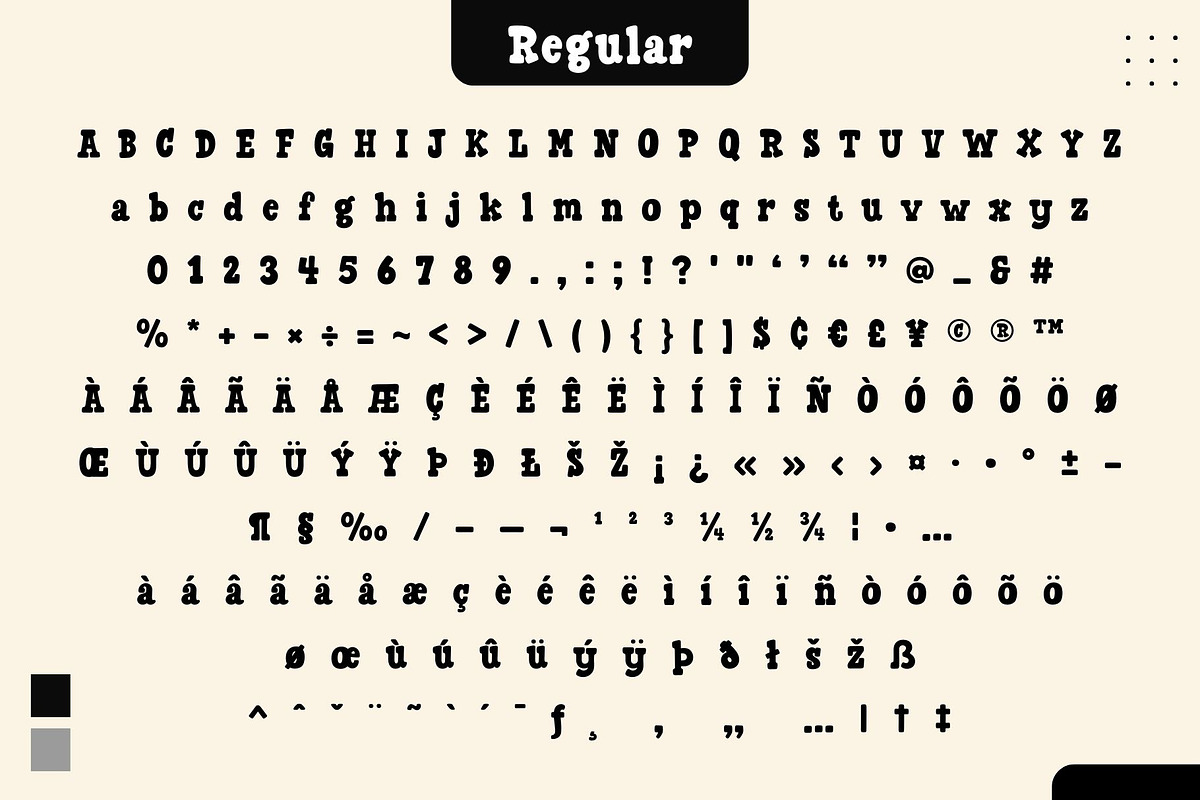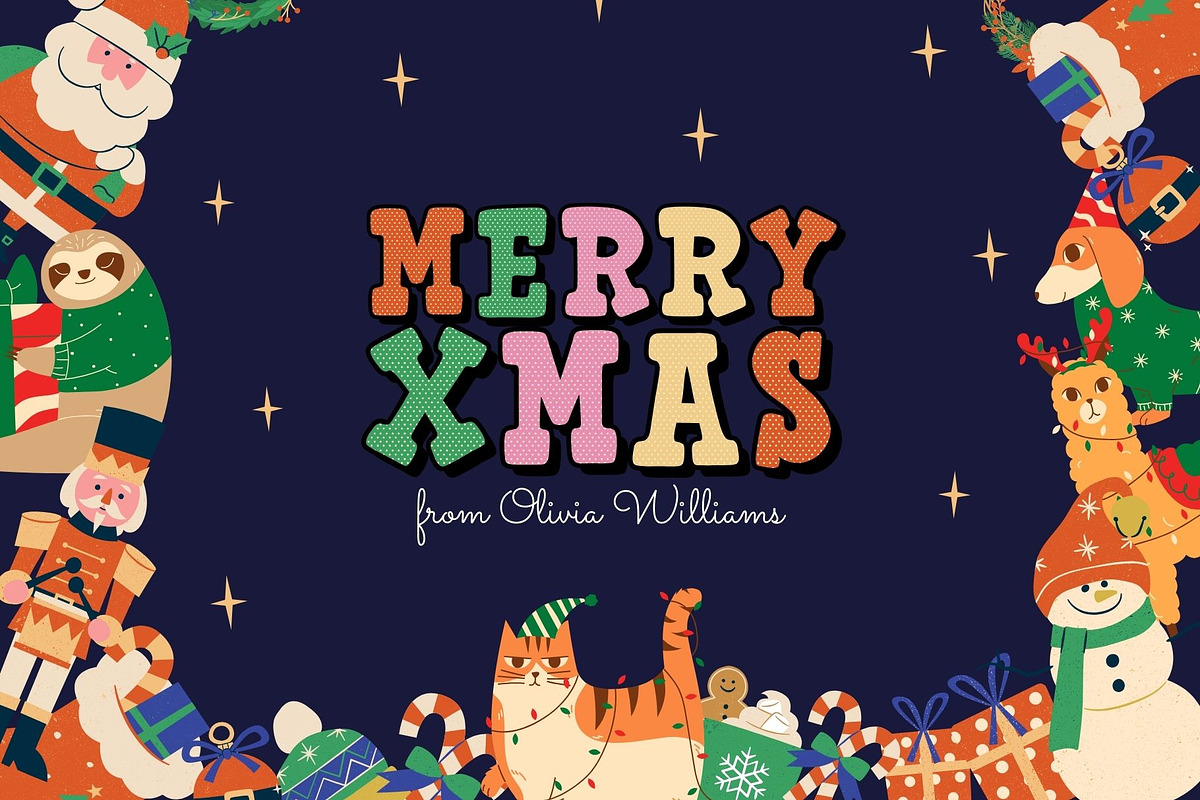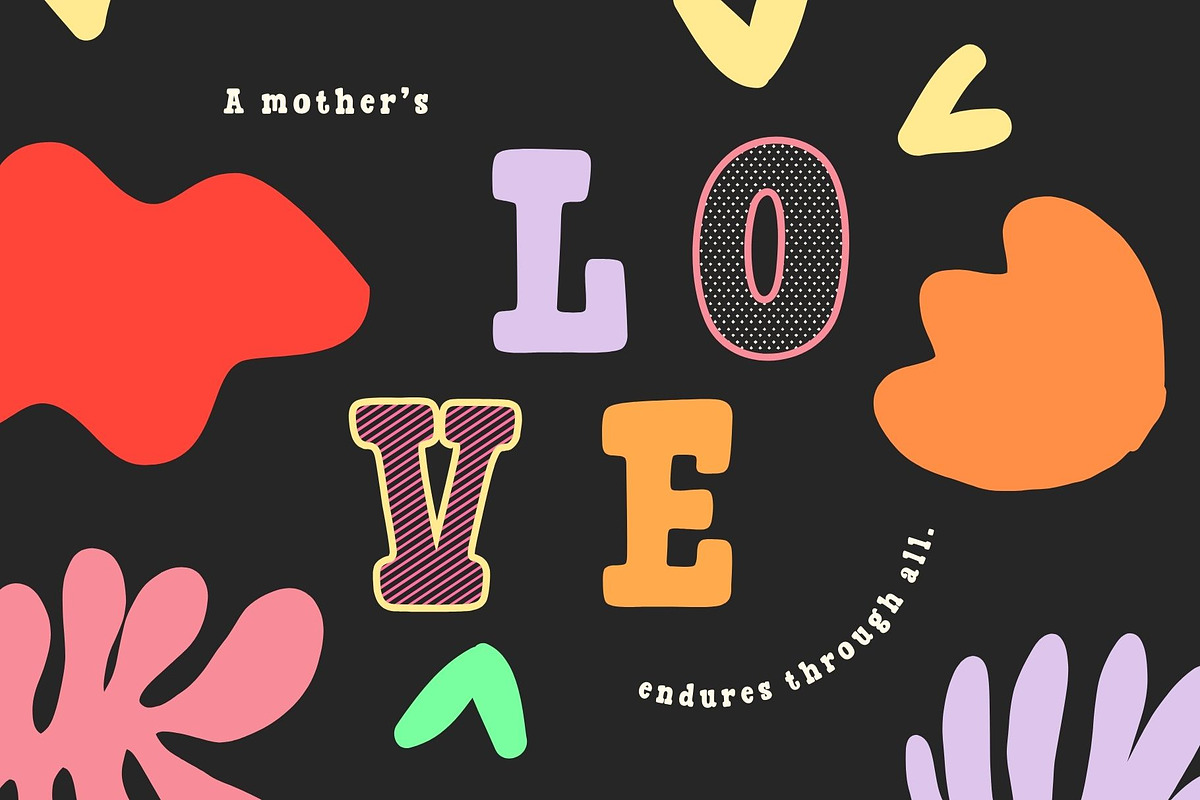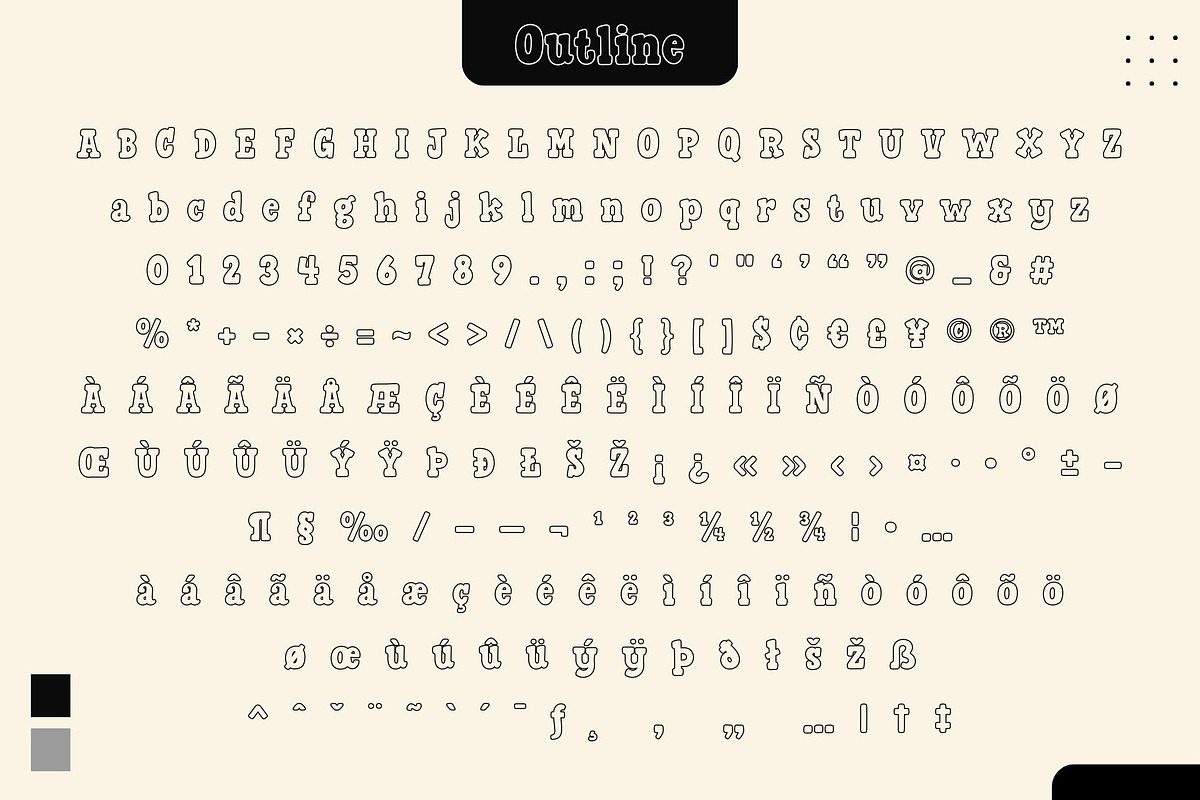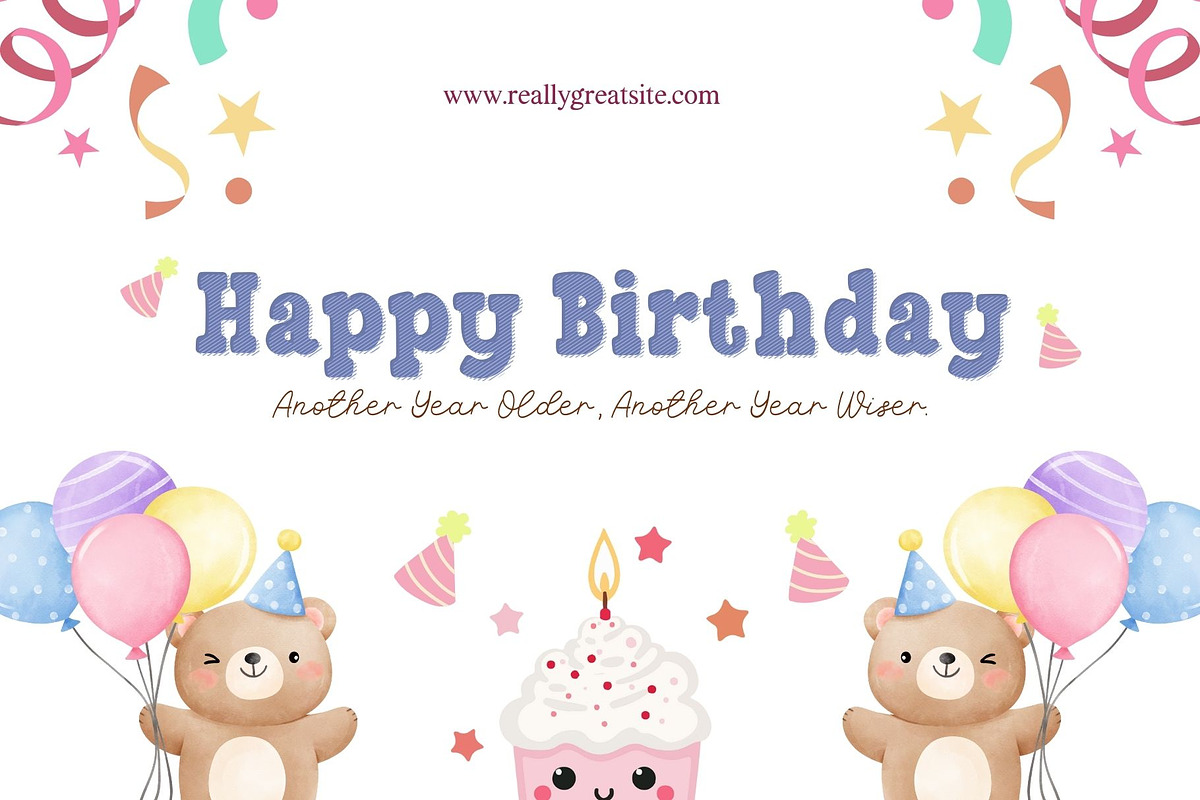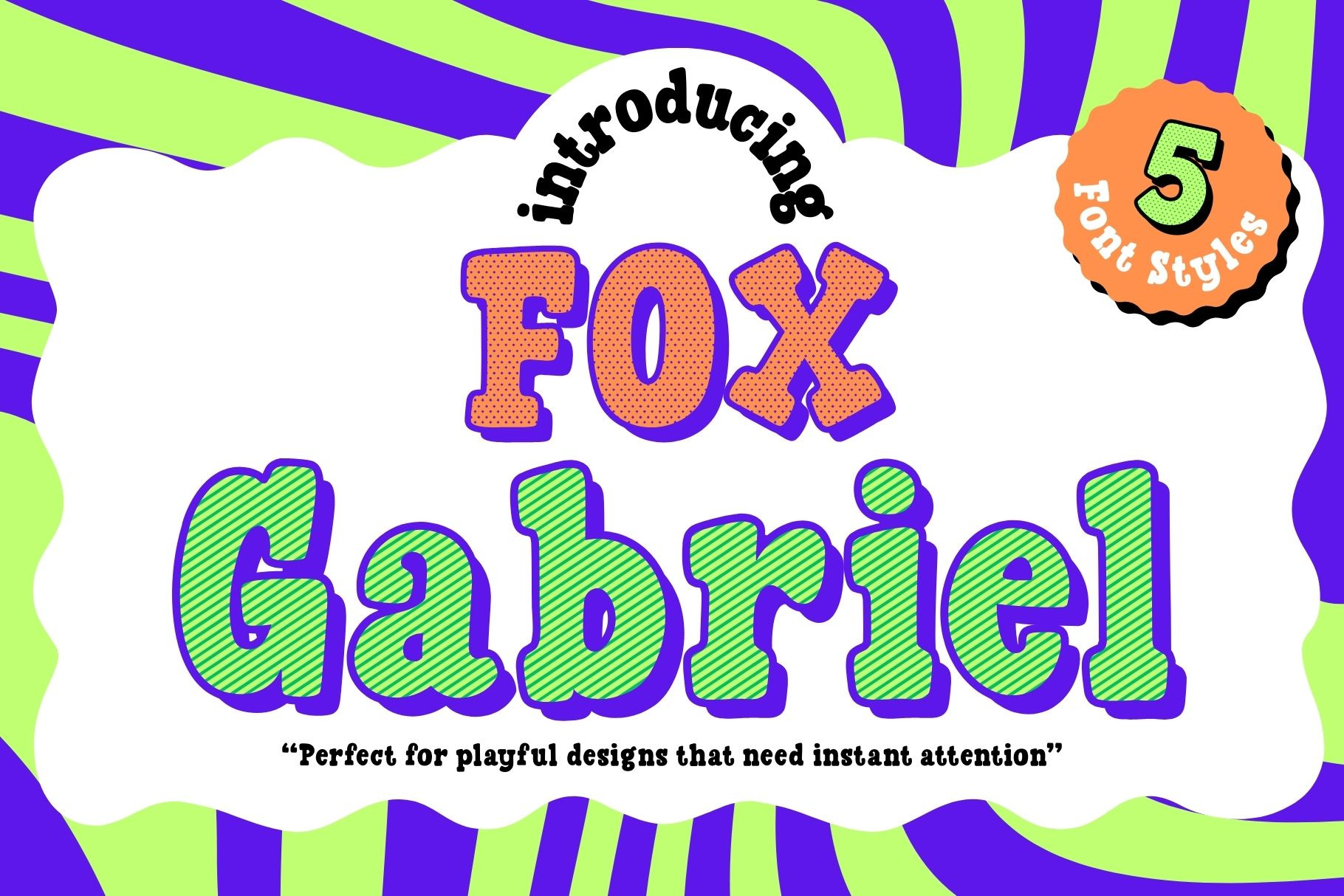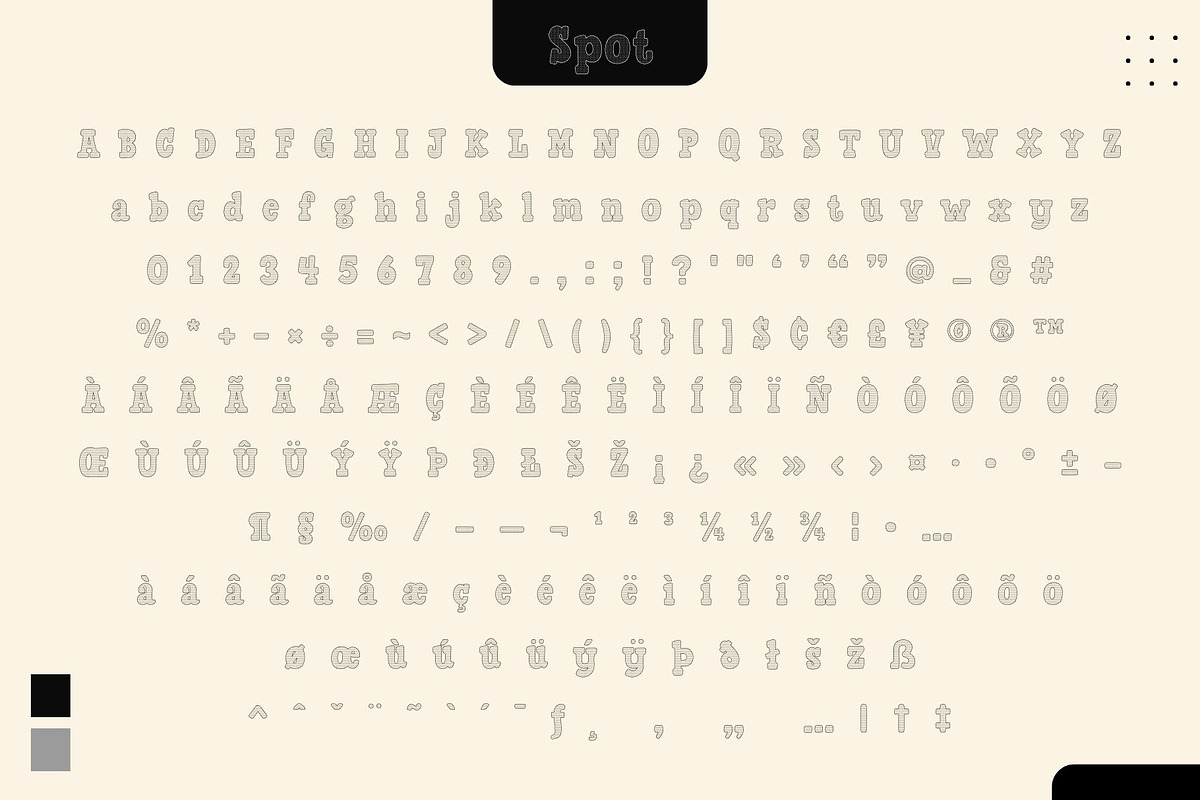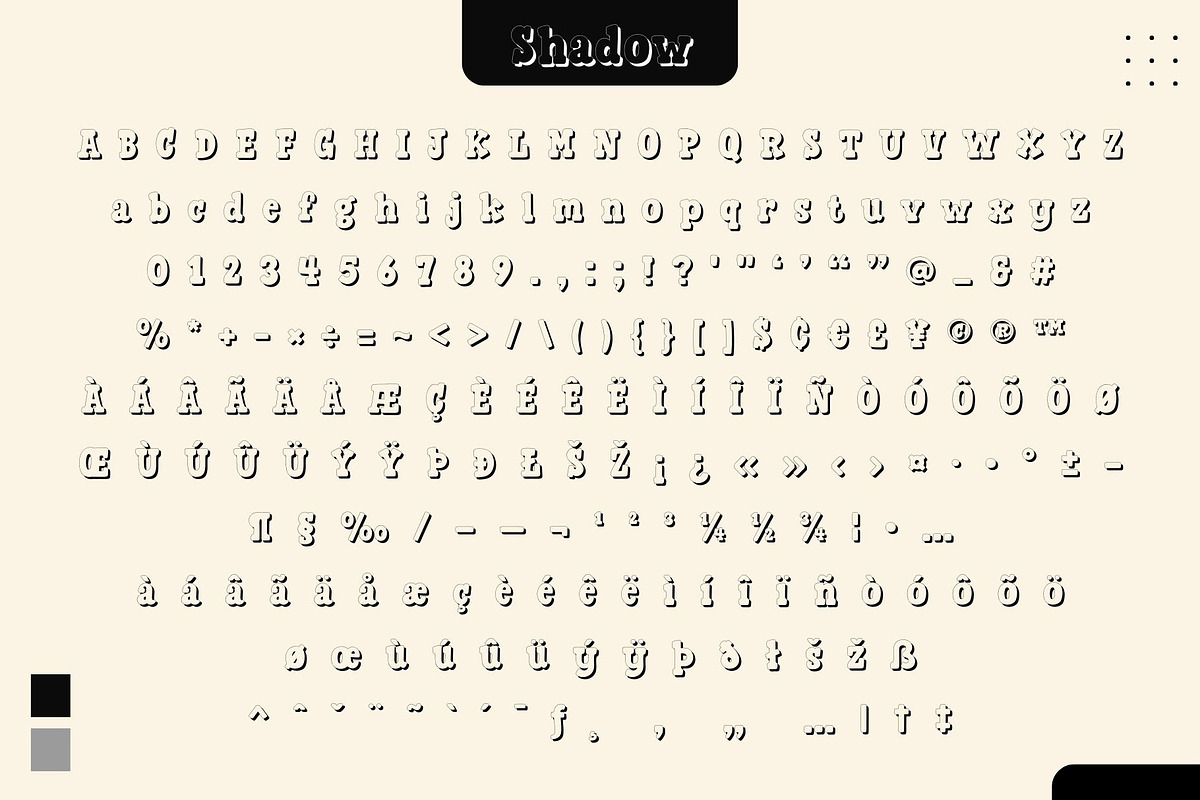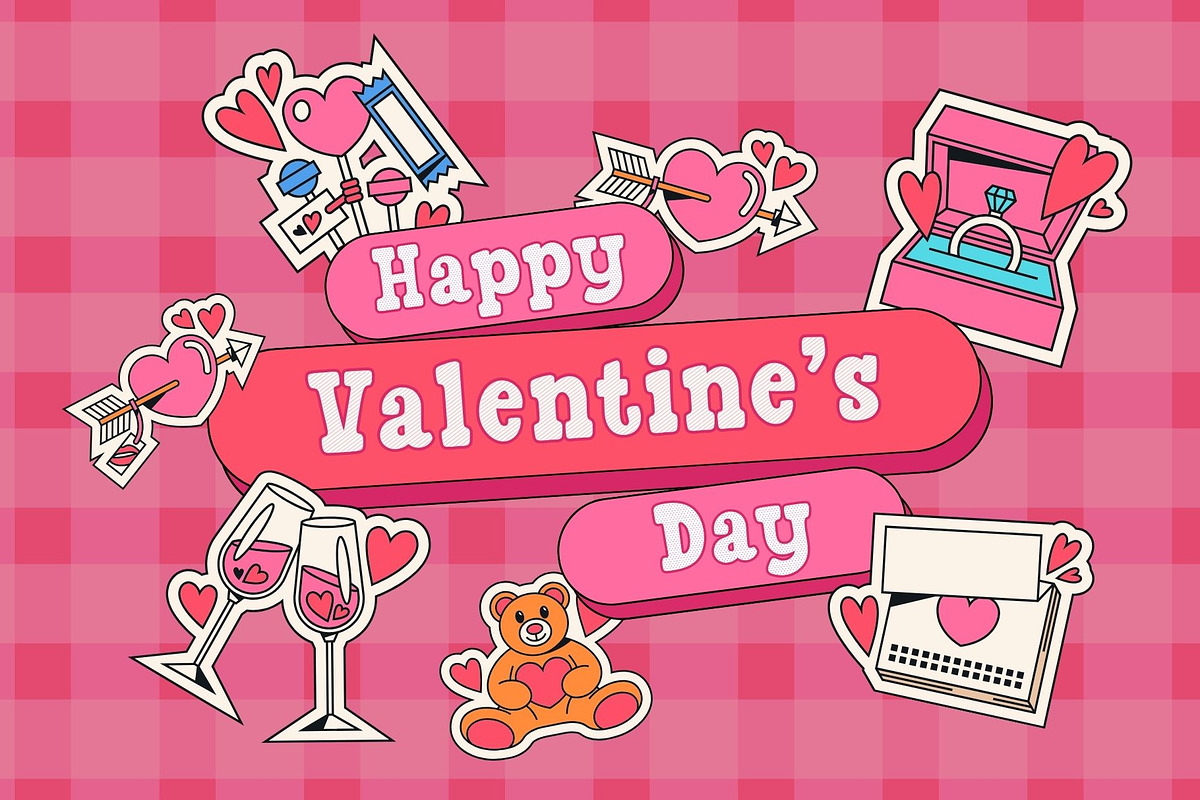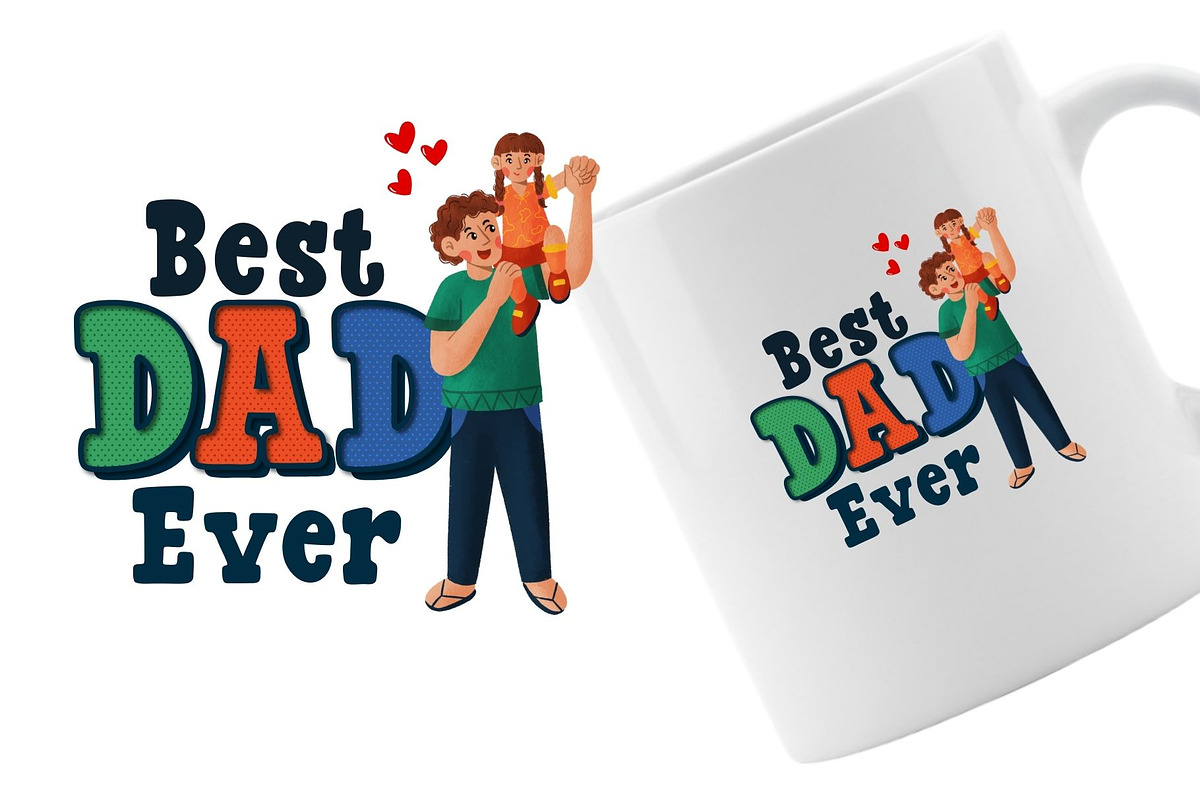
Fox Gabriel : 5 Font Styles
Fox Gabriel is a bold, playful display font packed with fun and energy. With 5 creative styles—Regular, Strokes, Spot, Outline, and Shadow—it’s perfect for bright, kid-friendly designs, cartoon themes, and attention-grabbing headlines. Mix the styles to create layered, lively typography that stands out in any project!
Let your creativity shine with Fox Gabriel—where every letter pops with fun and energy! 🌟